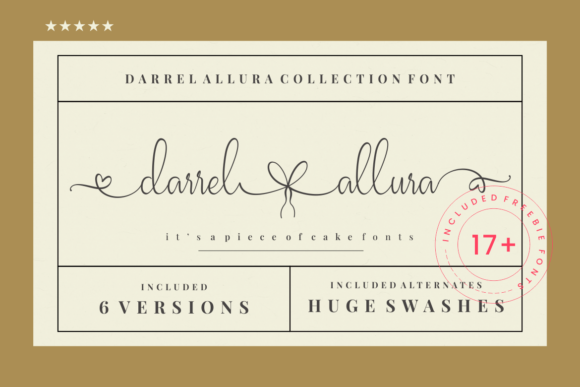
The Magic of Darrel Allura Collection Font
Have you ever sat at your desk, staring blankly at a blank page, waiting for inspiration to strike? That’s where I was when I stumbled upon the Darrel Allura Collection Font – a magical script font that breathed life into my design ideas and brought them to the next level. Its elegant touch and versatility make it the perfect companion for any creative project.
The Darrel Allura Collection Font is a carefully crafted script font that’s perfect for Instagram, calligraphy scripts, and DIY projects. With its PUA encoding, accessing all the glyphs and swashes is a breeze, making it a valuable addition to any designer’s toolkit. Whether you’re a seasoned pro or a budding designer, this font will help you turn your creative ideas into stunning works of art.
Darrel Allura Collection Font Key Features
- Unique Characteristics: The Darrel Allura Collection Font features a distinctive, hand-crafted aesthetic with intricate details and ornaments, setting it apart from standard fonts.
- Font Style: Available in 6 different font styles, including regular, bold, italic, and script, offering flexibility for various design applications.
Darrel Allura Collection Font Review
As a designer, I was excited to dive into the Darrel Allura Collection Font, but my experience was a mix of both excitement and frustration. Here’s my honest review.
- The font has a unique, hand-drawn feel that’s perfect for creative projects.
- The font includes a wide range of characters, including punctuation and numbers.
- The font is available in multiple weights, making it easy to achieve the desired level of legibility.
- The font is not suitable for large blocks of text, as the irregularities can make it difficult to read.
- The font lacks consistency in terms of spacing and kerning, which can affect the overall appearance.
- The font does not include any ligatures, which can lead to awkward letter combinations.
While the Darrel Allura Collection Font has its unique charm, I wouldn’t recommend it for everyday use. It’s best suited for projects where a touch of hand-drawn flair is needed, such as invitations, posters, or social media graphics. However, for larger text or body copy, I would suggest exploring other font options that offer better consistency and legibility.
The Darrel Allura Collection Font is ideal for:
- Designing titles and headings for presentations and documents.
- Creating visually appealing headings and titles for websites
What is the character set and language support for the Darrel Allura Collection Font?
The Darrel Allura Collection Font includes a comprehensive character set with support for Latin, Cyrillic, and Greek alphabets, as well as punctuation and symbol characters. The font also includes a range of language-specific characters, including accented characters, diacritics, and ligatures. The font is suitable for use in a wide range of languages, including English, Spanish, French, German, Italian, Portuguese, Dutch, Russian, and many others.